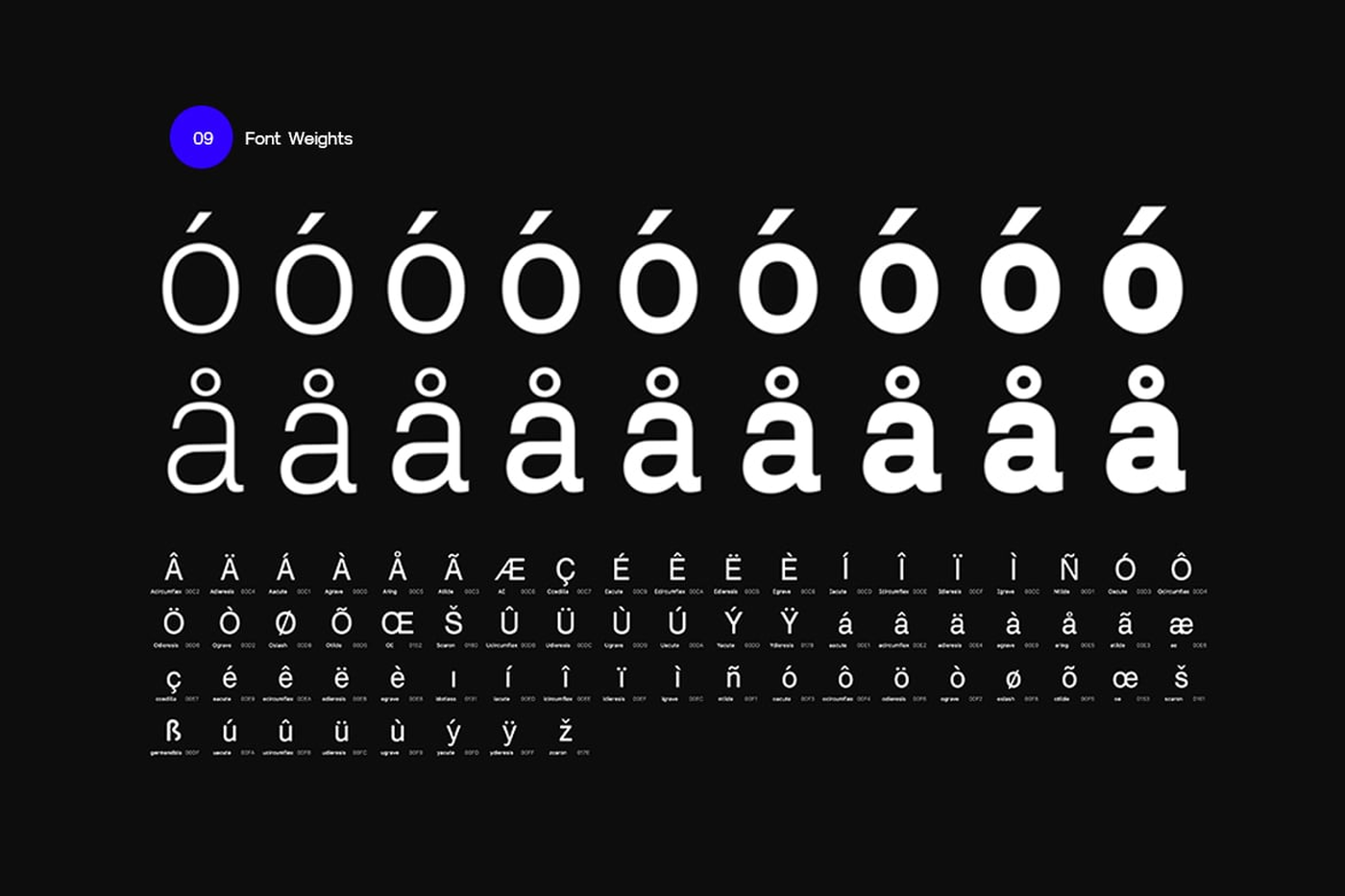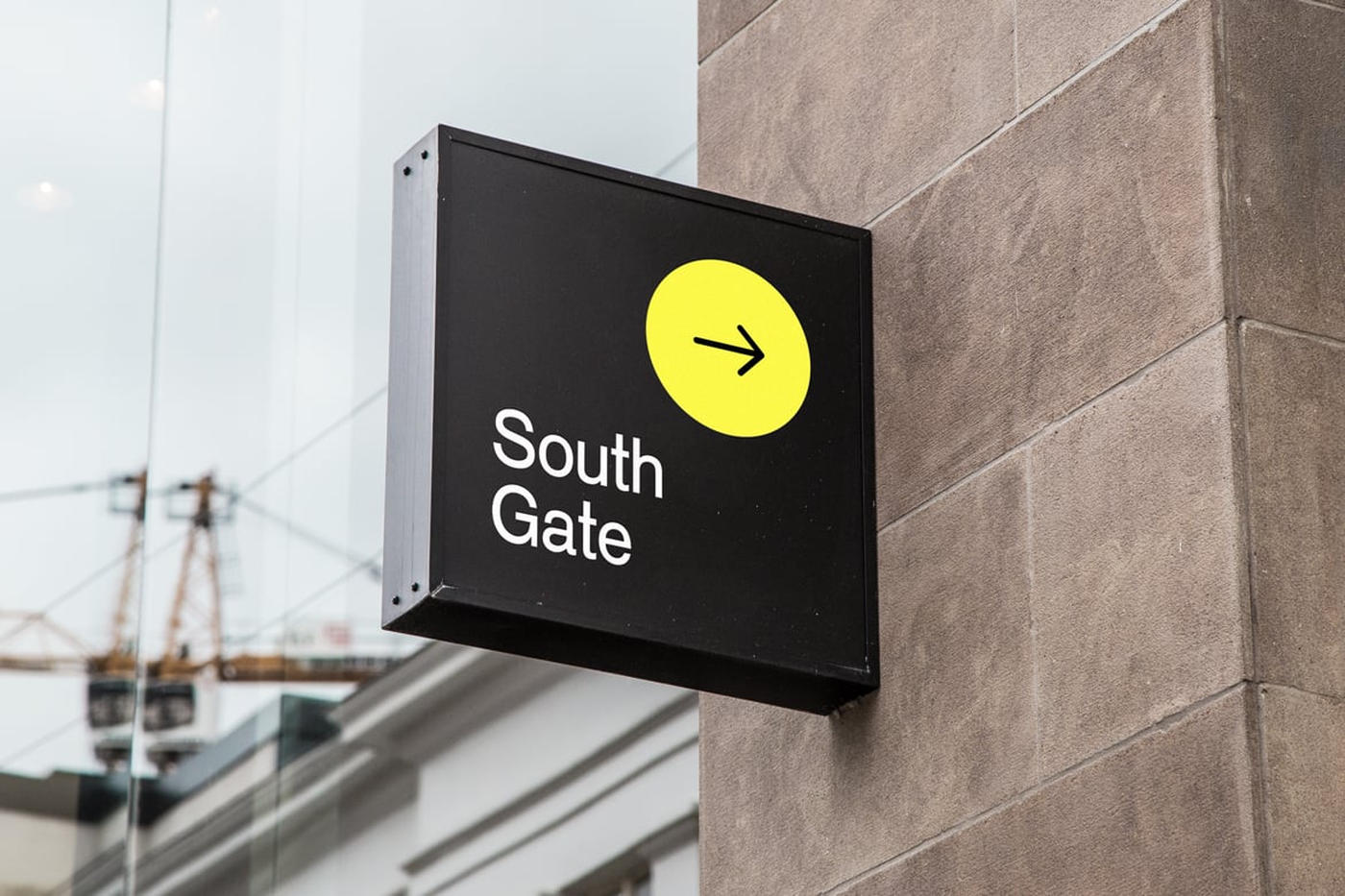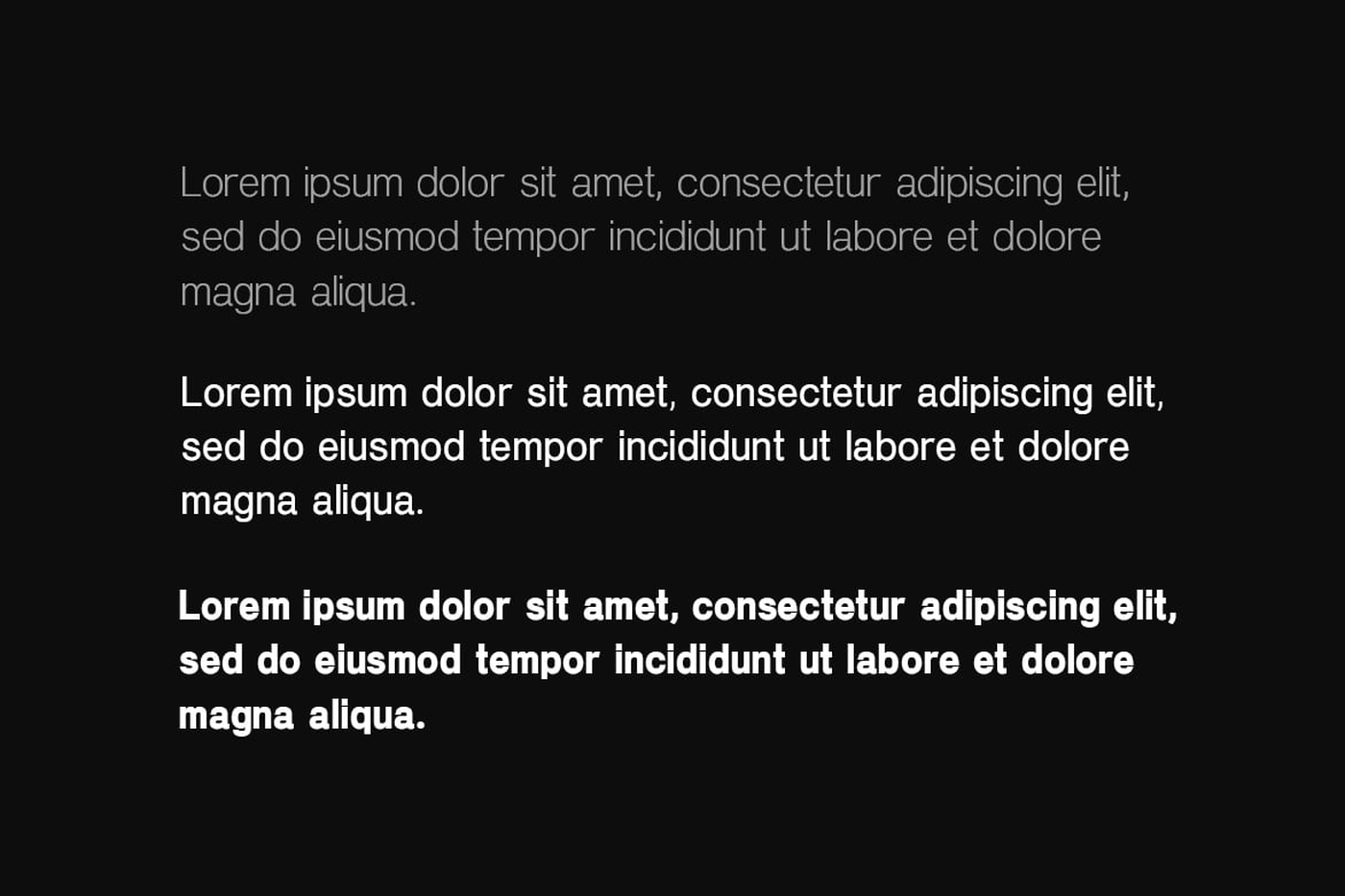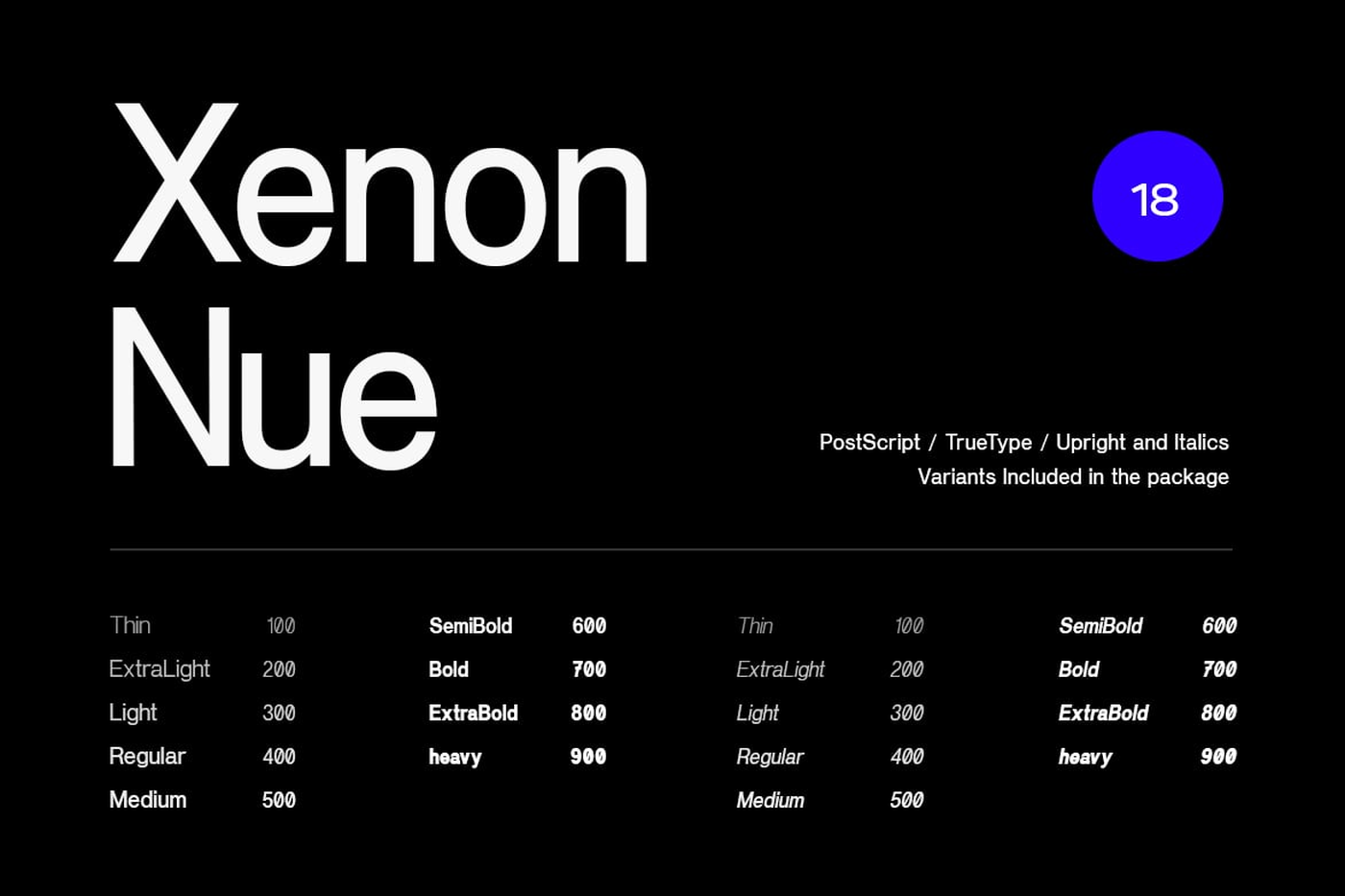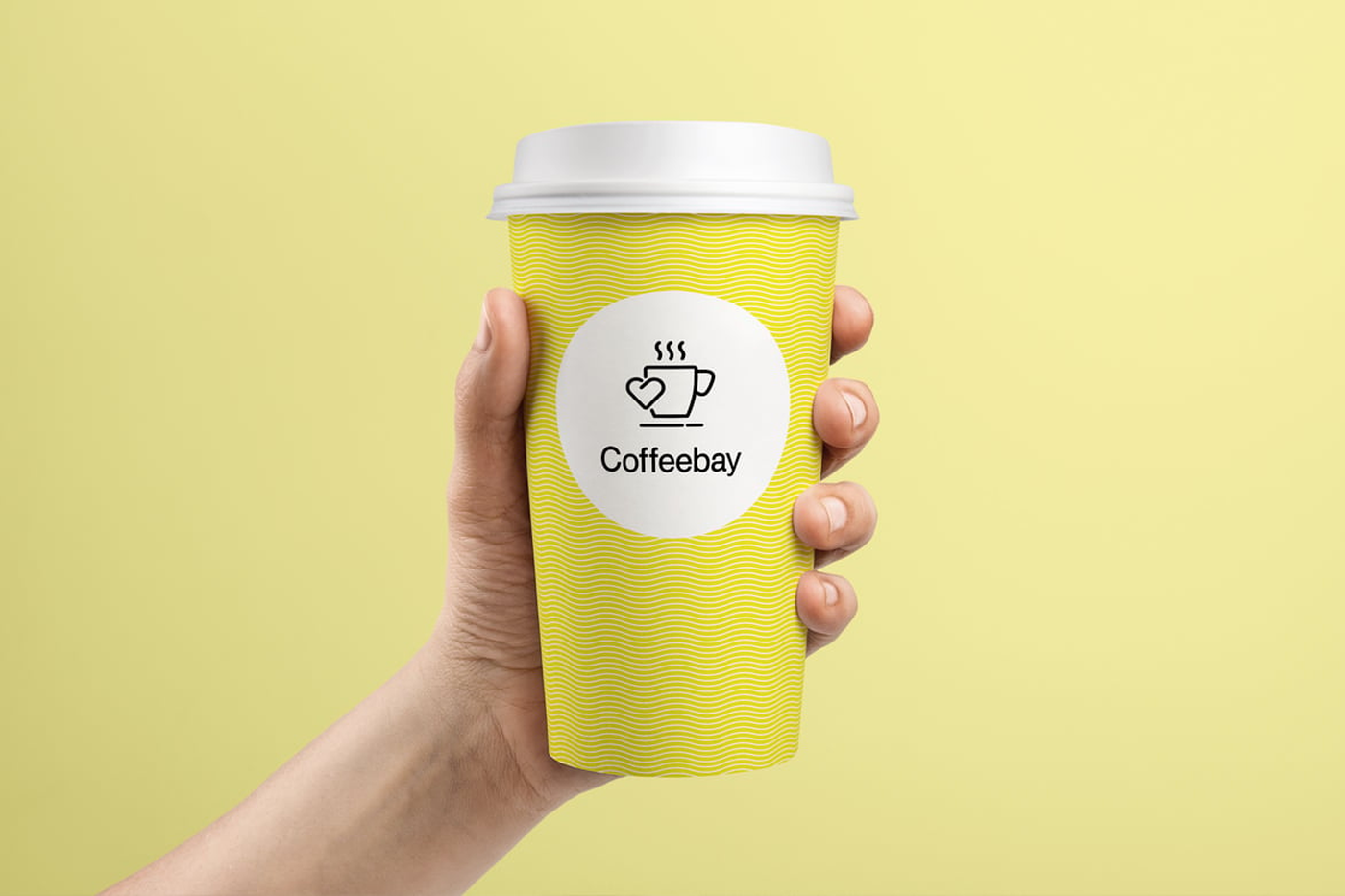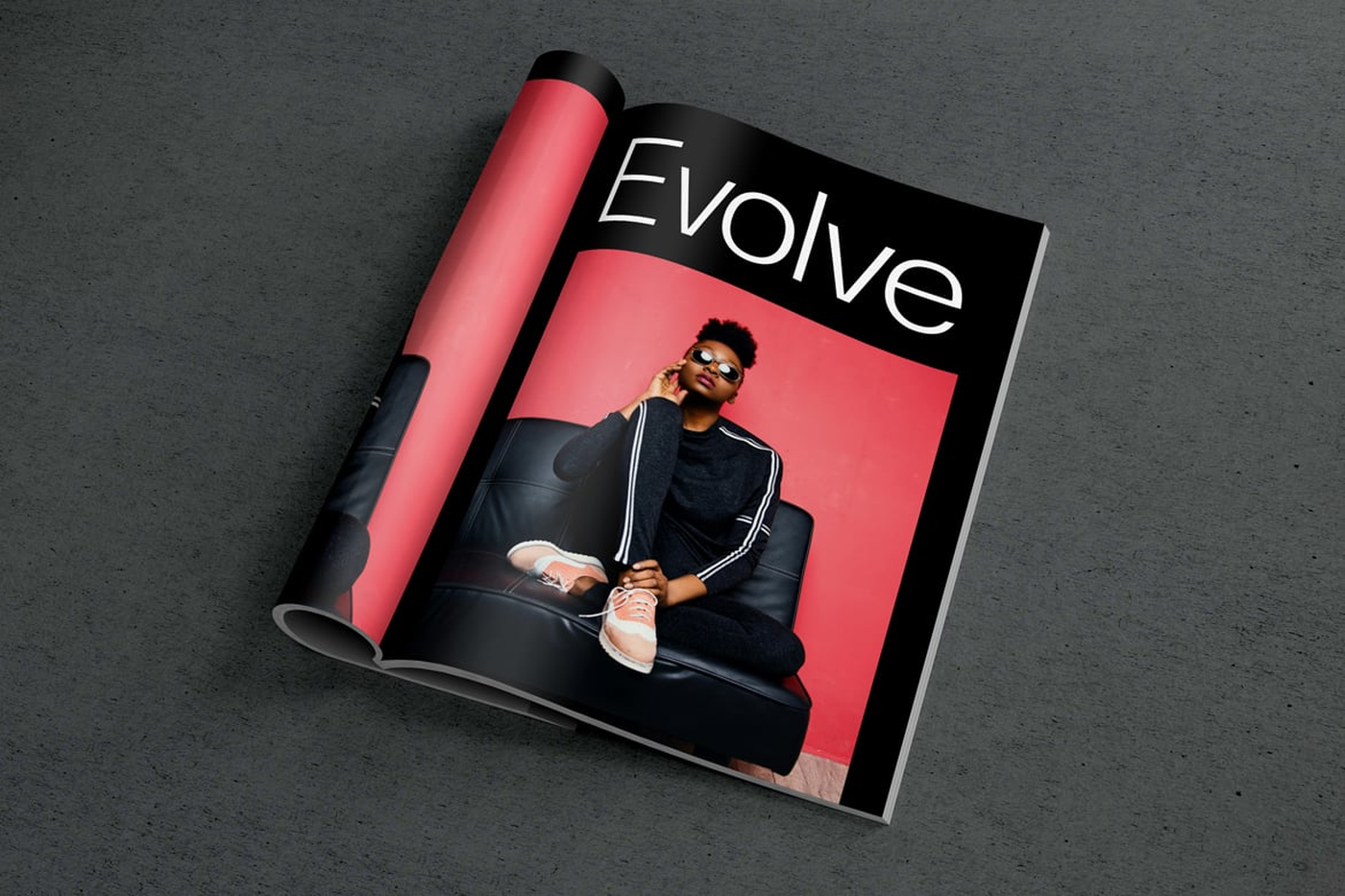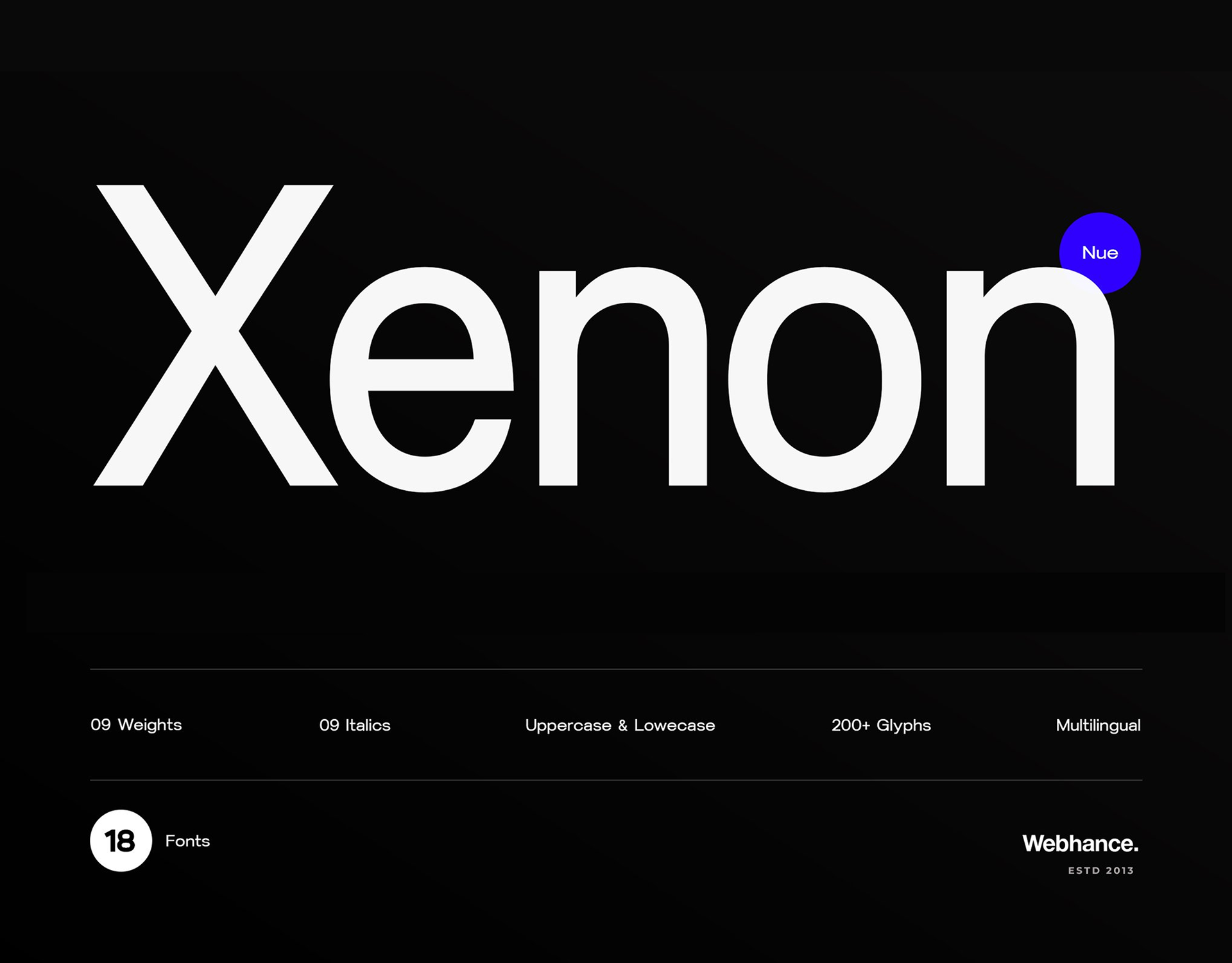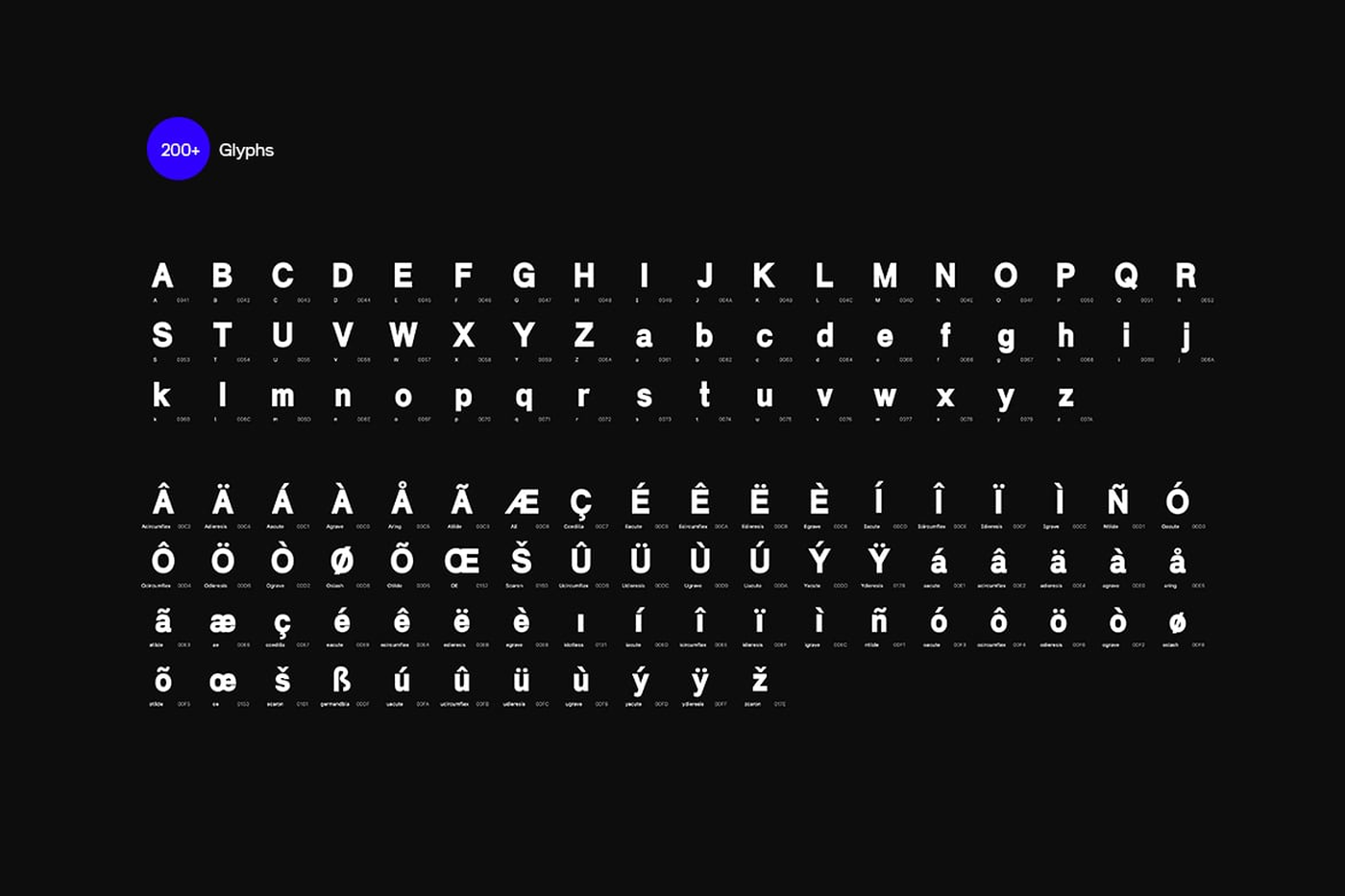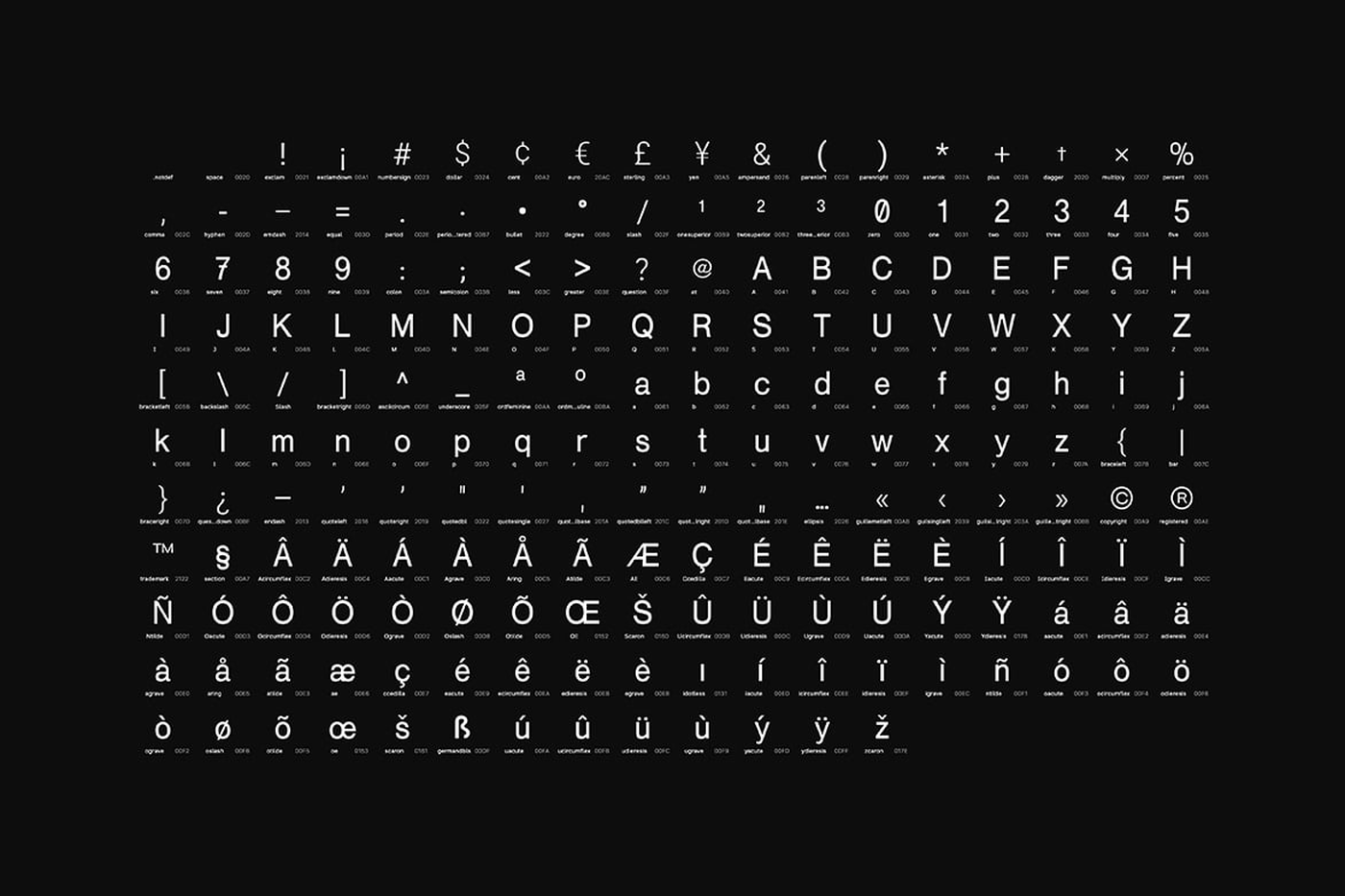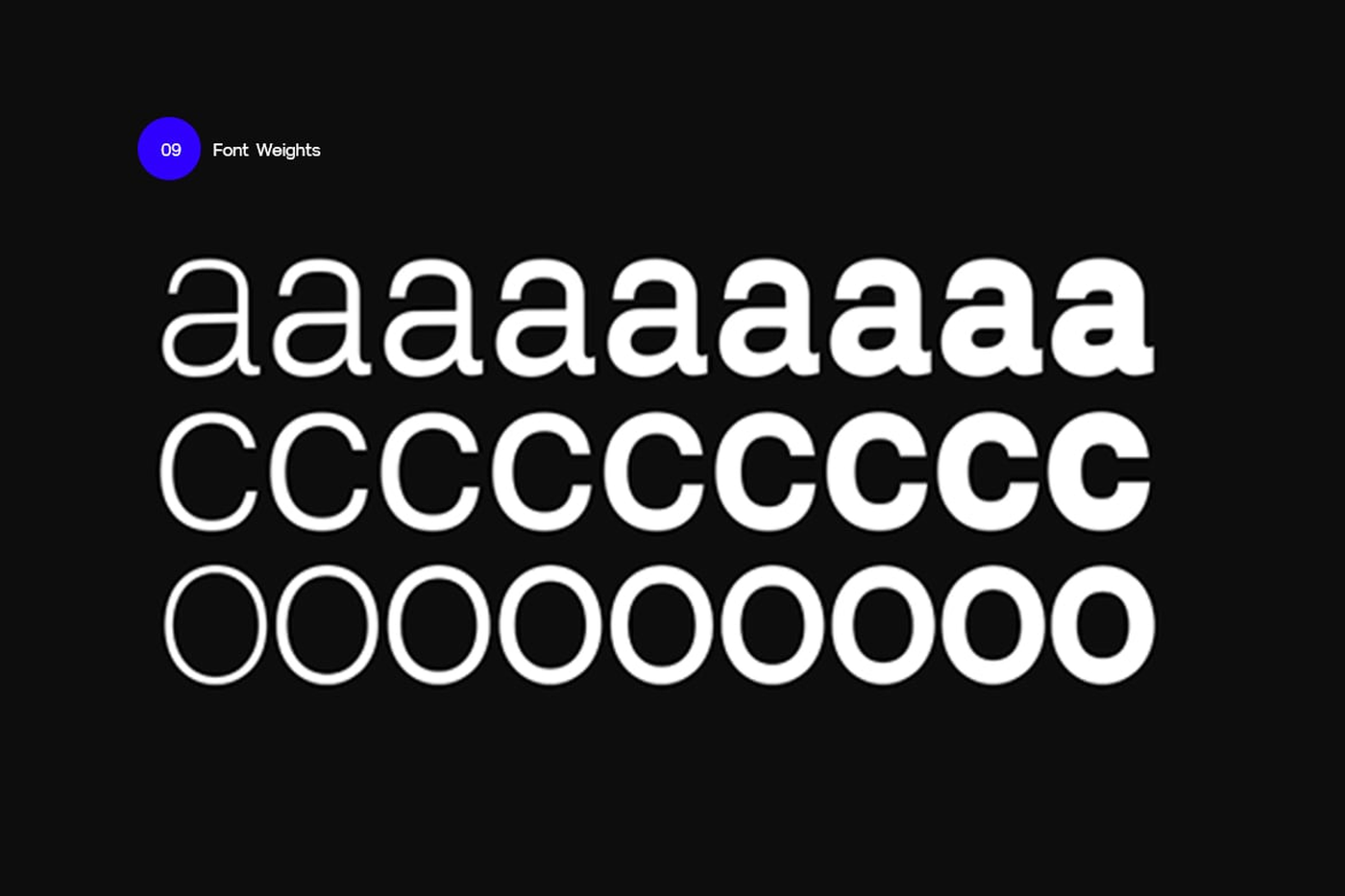
Xenon Nue - Sans Serif Font Family
Xenon Nue is a sleek and versatile sans-serif font family meticulously crafted to elevate your design projects with its futuristic appeal and refined simplicity. Featuring 9 meticulously designed weights—ranging from the delicate Thin to the commanding Heavy—alongside their corresponding italics, Xenon Nue offers a total of 18 fonts to fulfill all your creative needs. This font is ideal for a wide range of applications, including branding, logo design, web development, poster creation, social media graphics, video overlays, and more. Its seamless integration across print and digital platforms ensures consistent and captivating results in any medium.
Font: Xenon Nue